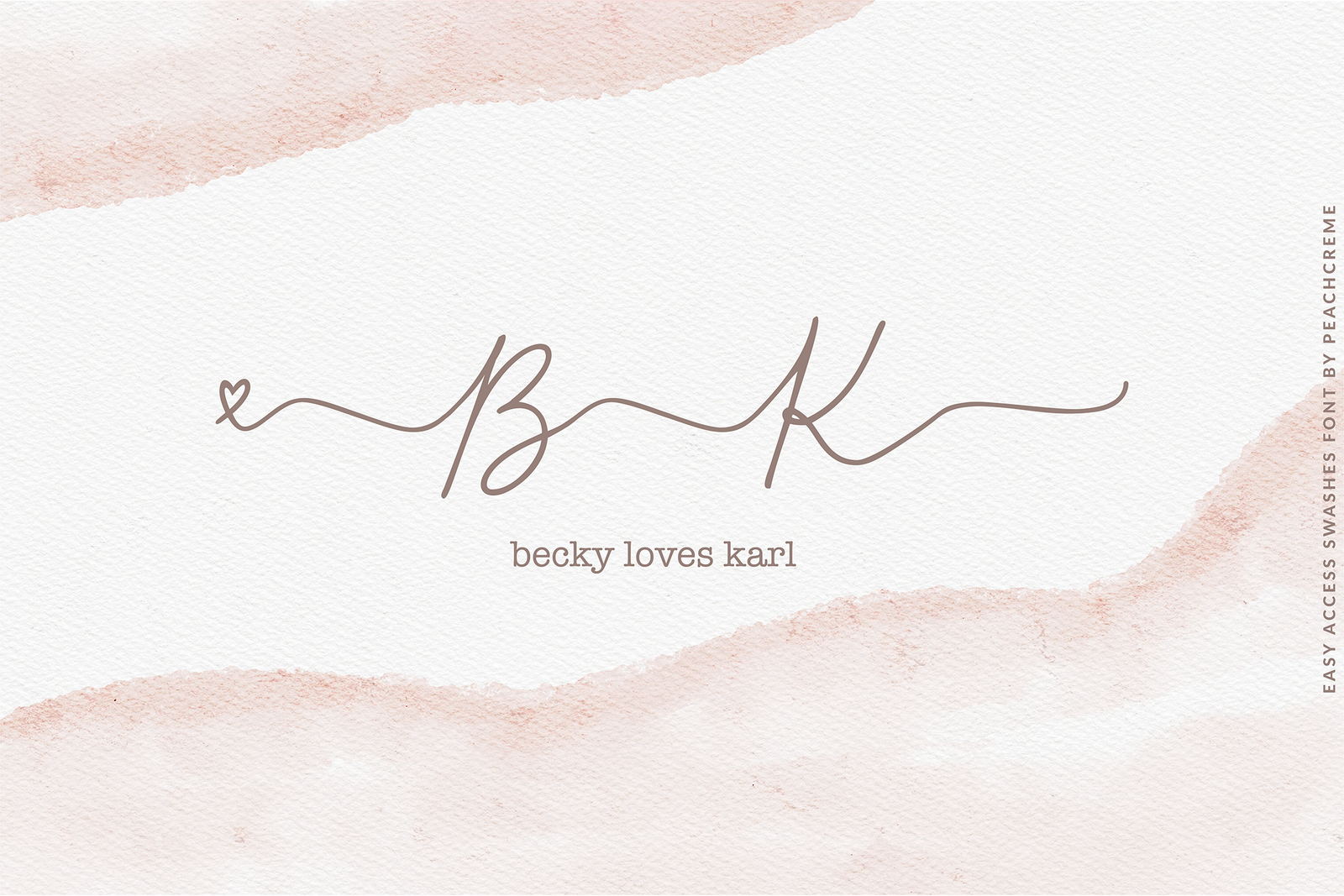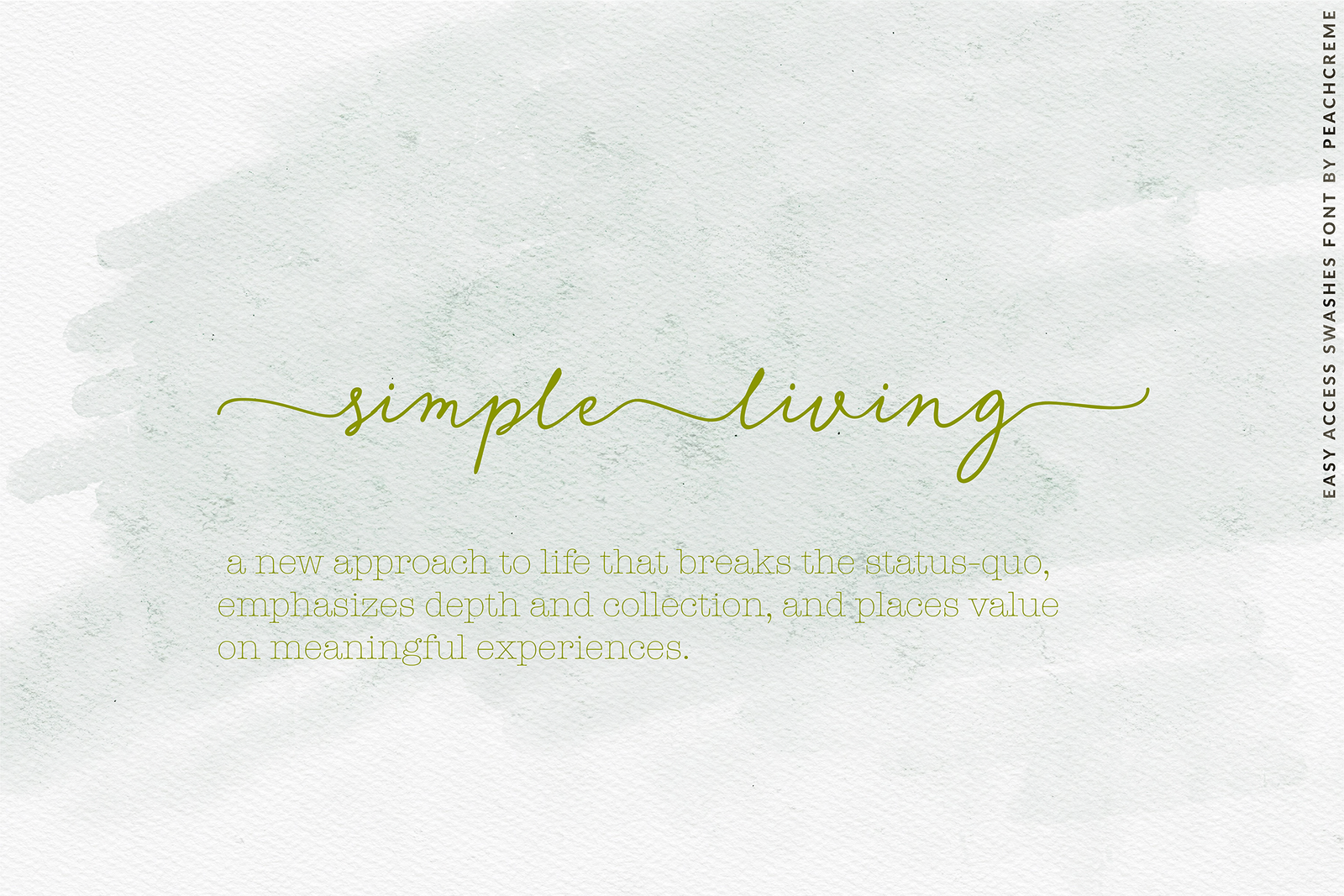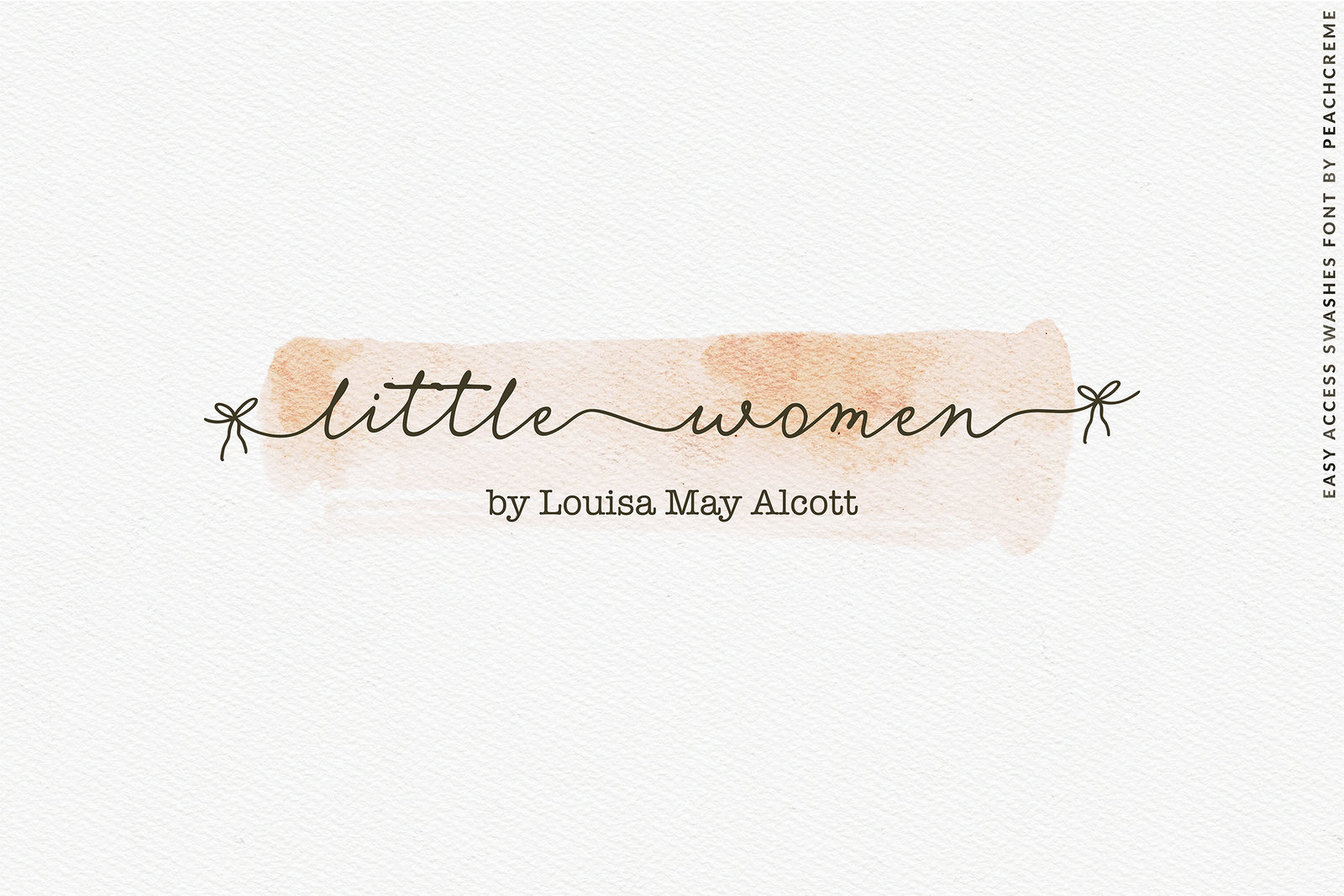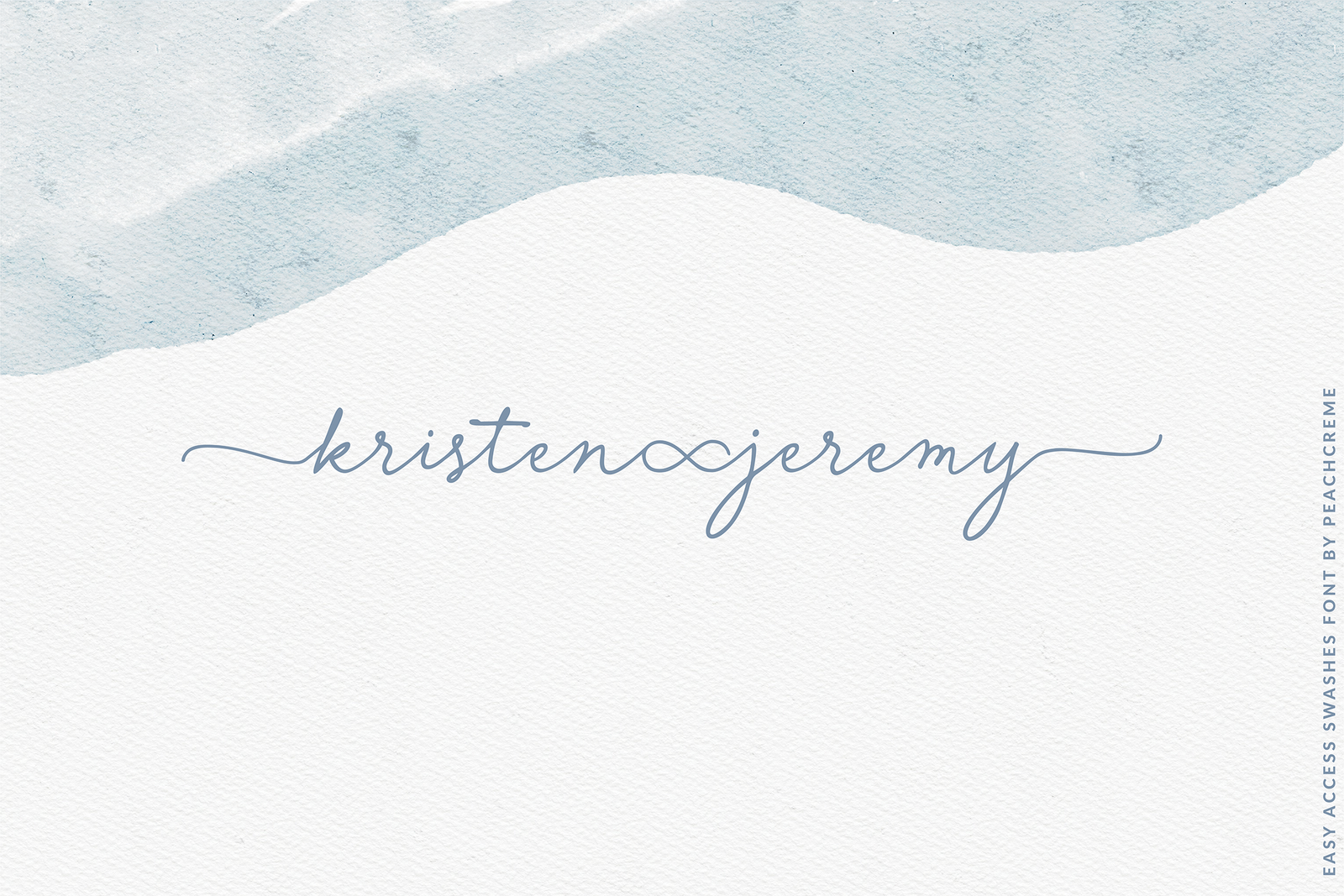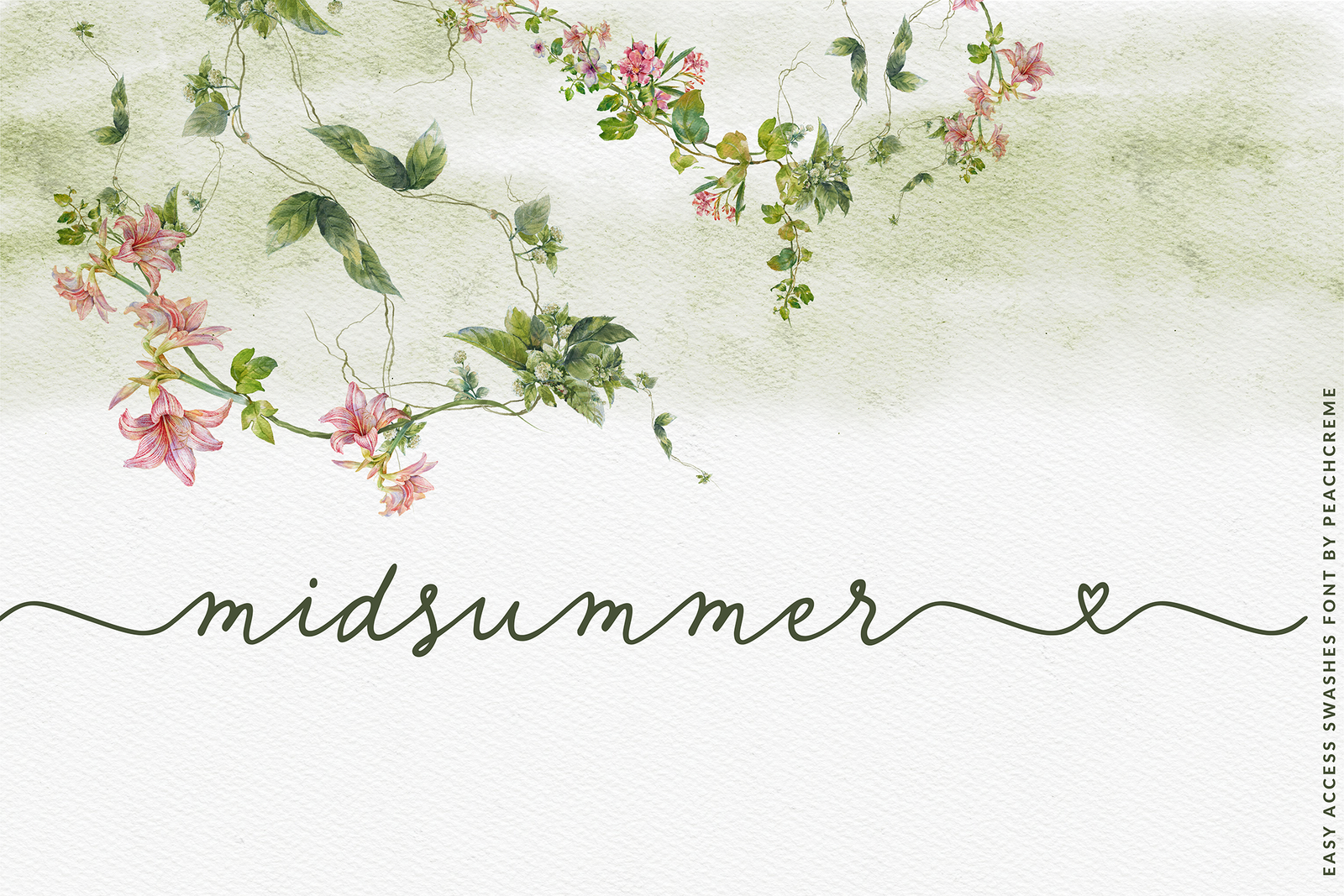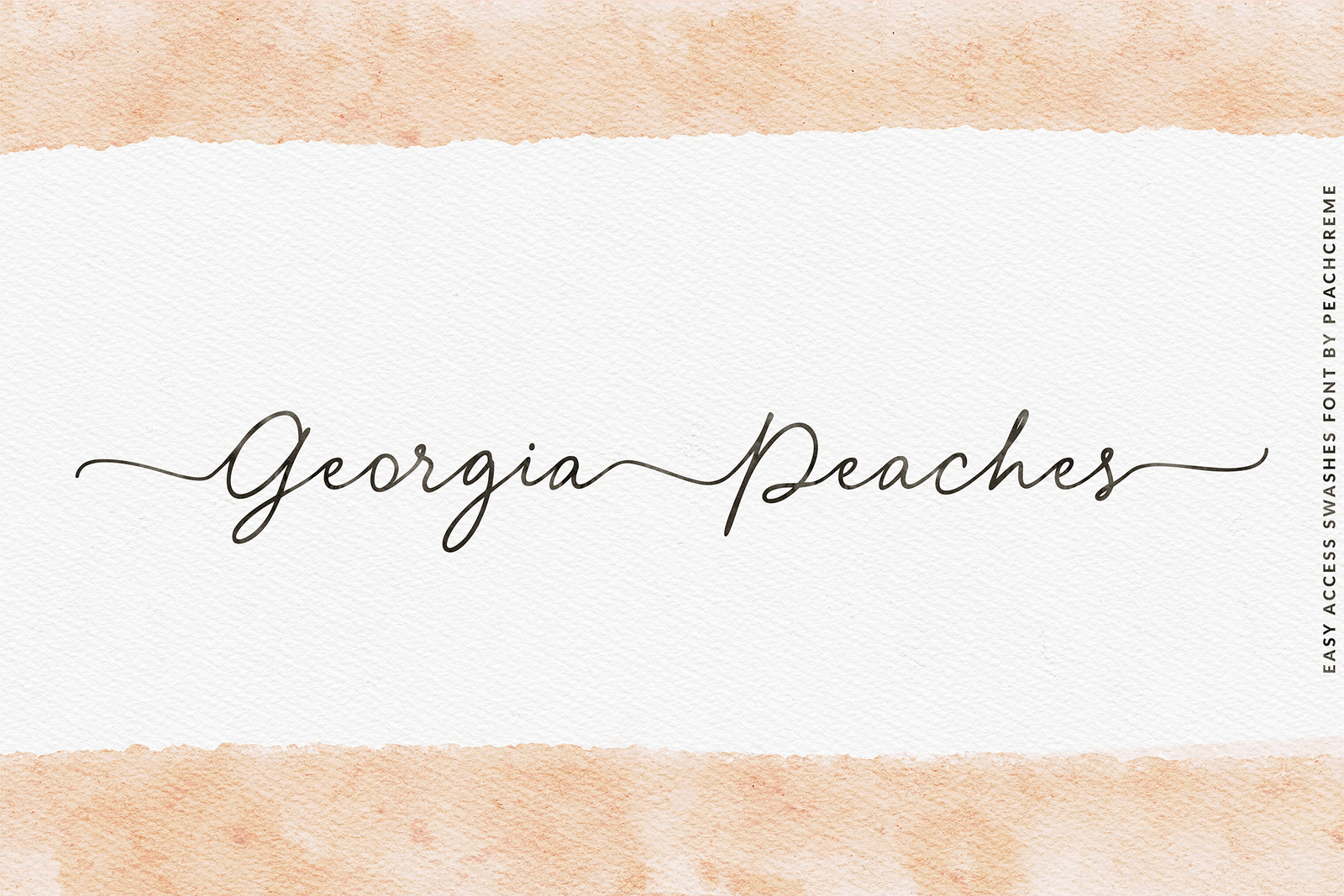
Finally, we are launching a font, the swashes of which can easily be used on mobile.
"Petite Kisses" includes a full set of lovely uppercase and lowercase letters, numerals, punctuations, and washes. It has:
With this amazing font you do not need to work on programs/softwares that support OpenType features which facilitates your job and saves your time. In order to get stunning swashes just type the following:
• beginning heart swash: type: ! (exclamation mark)
• ending heart swash: type: @ (at)
• branch: type: # (hash)
• beginning bow: type: $ (dollar sign)
• ending bow: type: % (percent)
• connecting stars: type: ^ (the caret)
• connecting heart: type: & (ampersand)
• connecting simple swash: type: - (hyphen)
• connecting eternity: type: * (asterisk)
• beginning swash: type: ( (opening round bracket)
• ending swash: type: ) (closing round bracket)
• beginning blowball: type: *** (opening angle bracket)*
• ending blowball: type: *** (closing angle bracket)*
This beautiful font is perfect for stunning logos, wedding designs, quotes, cards, display text and more.